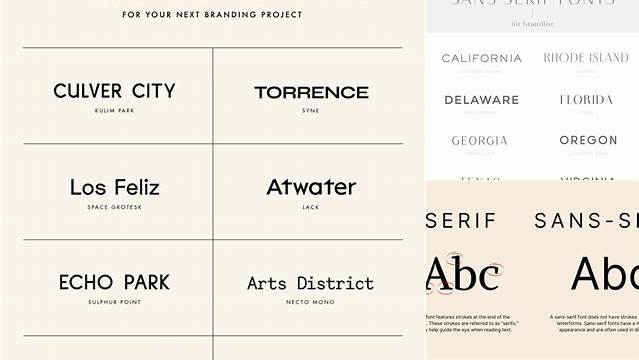
Sans Serif Fonts On FontSpace: Find Your Perfect Style
Are you looking for the perfect sans serif fonts on FontSpace to elevate your designs? You've come to the right place! In this comprehensive guide, we'll dive deep into the world of sans serif fonts available on FontSpace, exploring their characteristics, uses, and how to find the ideal one for your next project. Whether you're a seasoned designer or just starting, understanding the nuances of sans serif fonts can significantly enhance your work. Let's get started, guys!
What are Sans Serif Fonts?
First off, let's talk about the basics. Sans serif fonts, meaning "without serifs" in French, are characterized by the absence of the small decorative strokes (serifs) that you see at the end of character strokes in serif fonts. This clean and minimalist design makes sans serif fonts incredibly versatile and widely used across various mediums. Think about some of the most popular sans serif fonts like Helvetica, Arial, and Open Sans – they're everywhere!
The history of sans serif fonts is pretty interesting. They emerged in the early 19th century, initially met with some resistance due to the prevailing popularity of serif fonts. However, as printing technology advanced and design aesthetics evolved, sans serif fonts gained traction, especially in the modernist movement where simplicity and functionality were highly valued. Today, they are a staple in graphic design, web design, and even branding.
Sans serif fonts are often perceived as modern, clean, and approachable, making them a great choice for digital interfaces, logos, and headlines. Their legibility at various sizes makes them ideal for both print and digital applications. For example, a website using a sans serif font for its body text will likely offer a better reading experience on screens compared to a serif font, which can sometimes appear cluttered in smaller sizes. This is because the clean lines of sans serif fonts reduce visual noise, allowing the reader's eye to move smoothly across the text.
Moreover, the versatility of sans serif fonts extends to different design styles. There are various subcategories within sans serif, such as geometric, humanist, and grotesque, each offering a unique flavor. Geometric sans serifs, like Futura, have a very structured and minimalist feel, often based on perfect geometric shapes. Humanist sans serifs, like Gill Sans, have a warmer, more organic feel, drawing inspiration from classical letterforms. Grotesque sans serifs, like Akzidenz-Grotesk, are among the earliest sans serif designs and possess a more industrial and straightforward appearance. Understanding these nuances will help you make a more informed decision when selecting a font for your project.
Why Choose Sans Serif Fonts on FontSpace?
FontSpace is a fantastic resource for designers, offering a vast library of fonts, including a huge selection of sans serif fonts. But why FontSpace specifically? Let's break it down:
- Variety: FontSpace boasts an impressive collection of fonts, ranging from classic designs to contemporary creations. You'll find everything from clean and professional sans serifs to more playful and quirky options. This variety ensures that you can find the perfect font to match the tone and style of your project.
- Easy to Navigate: FontSpace's website is user-friendly, making it easy to search for and filter fonts. You can search by font type (sans serif, serif, script, etc.), style (bold, italic, condensed, etc.), and even by specific keywords or tags. This makes the process of finding the perfect font much more efficient.
- Community and Inspiration: FontSpace has a vibrant community of designers and typographers who share their work and provide feedback. This can be a great source of inspiration and a way to discover new and exciting fonts. You can also see how other designers are using different fonts in their projects, giving you ideas for your own work.
The ability to preview fonts on FontSpace is another significant advantage. You can type in your own text and see how it looks in different fonts before downloading them. This helps you to ensure that the font is legible and fits your design needs. Furthermore, FontSpace often provides font pairings, suggesting fonts that work well together, which can be incredibly helpful if you're struggling to choose complementary typefaces.
Popular Sans Serif Font Styles on FontSpace
Okay, so let's get into some specifics. Within the realm of sans serif fonts, there are several popular styles you'll find on FontSpace. Knowing these styles can help you narrow down your search and find the perfect fit for your project:
Choosing the right sans serif font from FontSpace can make a huge difference in the success of your design projects. By understanding the characteristics of different sans serif styles, utilizing FontSpace's search and filtering tools, and following best practices for font usage, you can create visually appealing and effective designs. So, go ahead, explore the vast world of sans serif fonts on FontSpace, and find the perfect typeface to bring your creative vision to life. Happy designing!